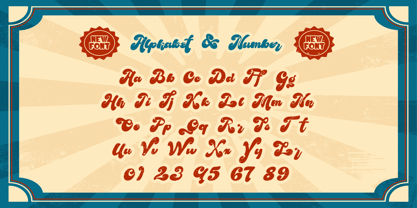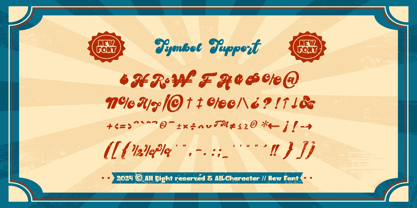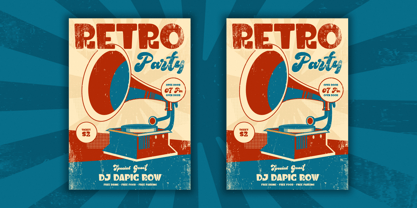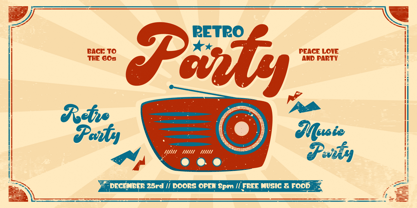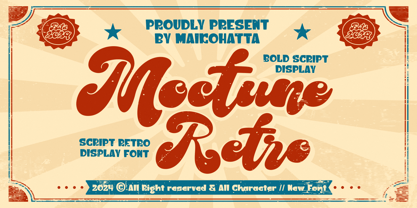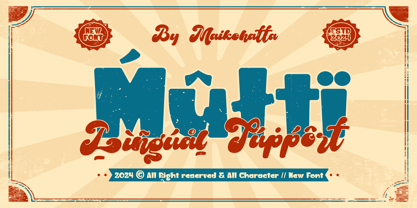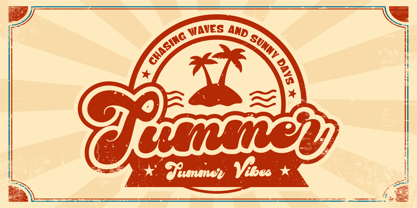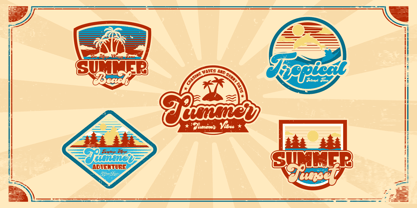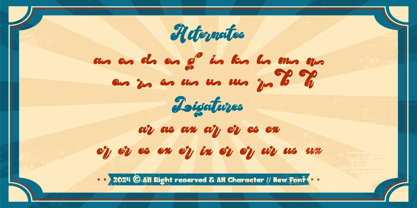
Moctune
by Maikohatta
The Moctune Font Family was designed by Gilang Ternadho and published by Maikohatta. Moctune contains 1 styles. More about this family
Introducing our new product Moctune - Script Retro Display
Moctune - is a very flexible choice and can be used in a variety of design contexts. Its ability to provide a clean, professional, contemporary look and its simplicity and visual appeal make this font good for use in the world of graphic design and modern typography.
Designers: Gilang Ternadho
Foundry: Maikohatta